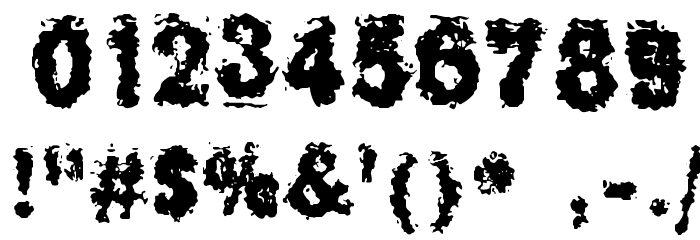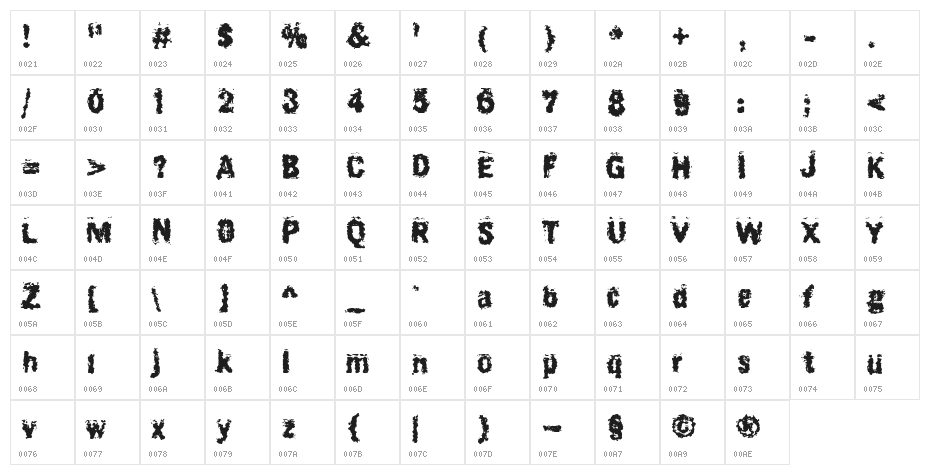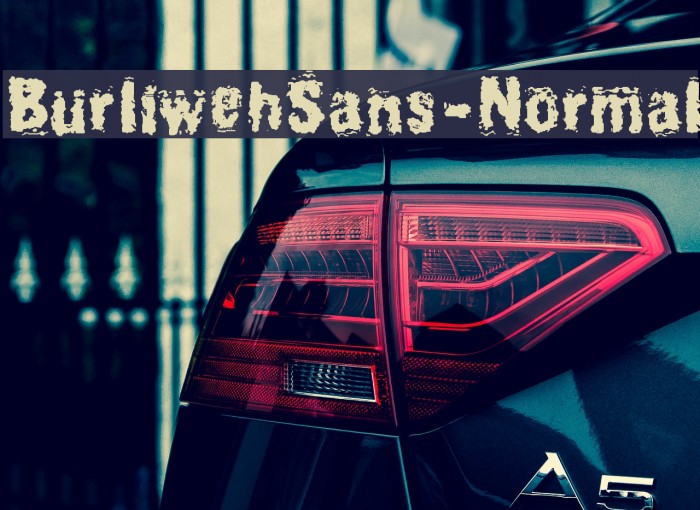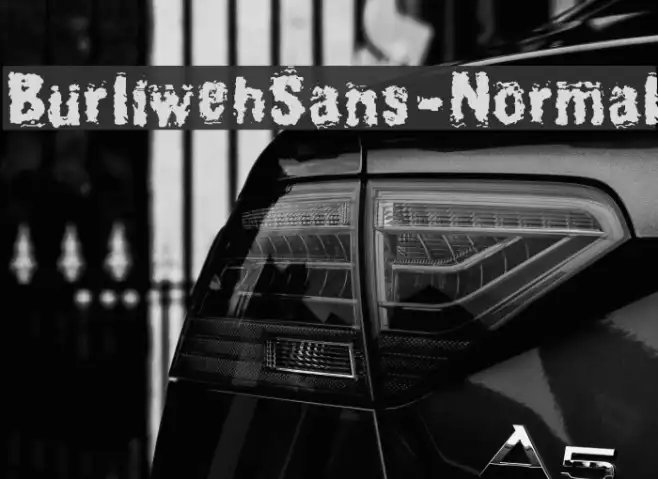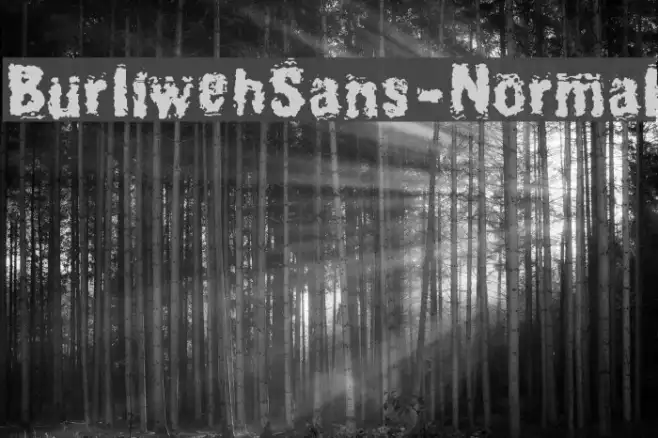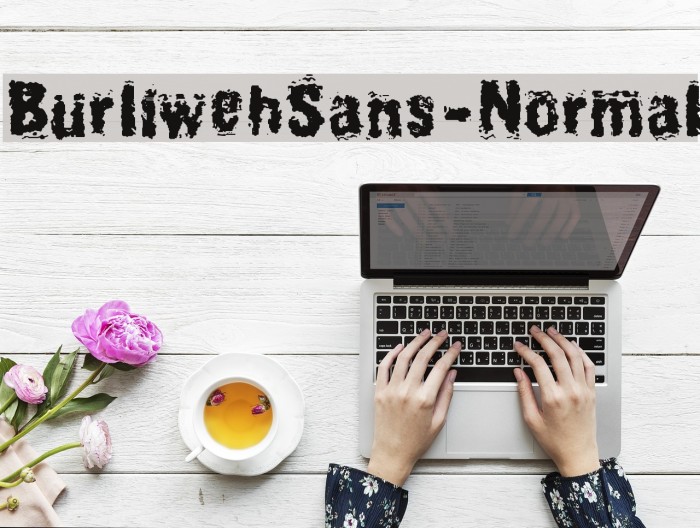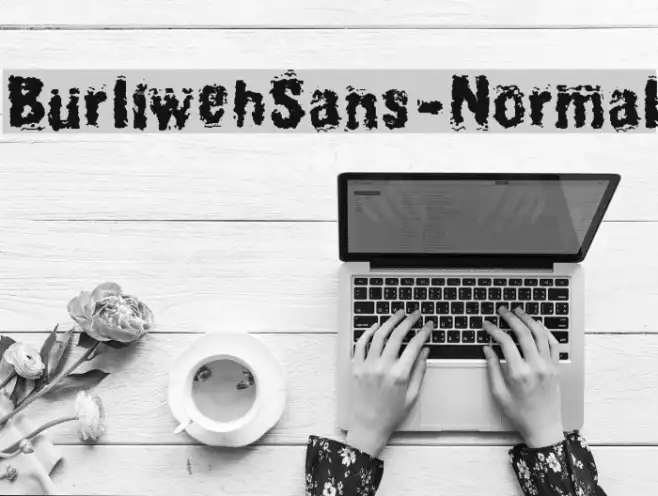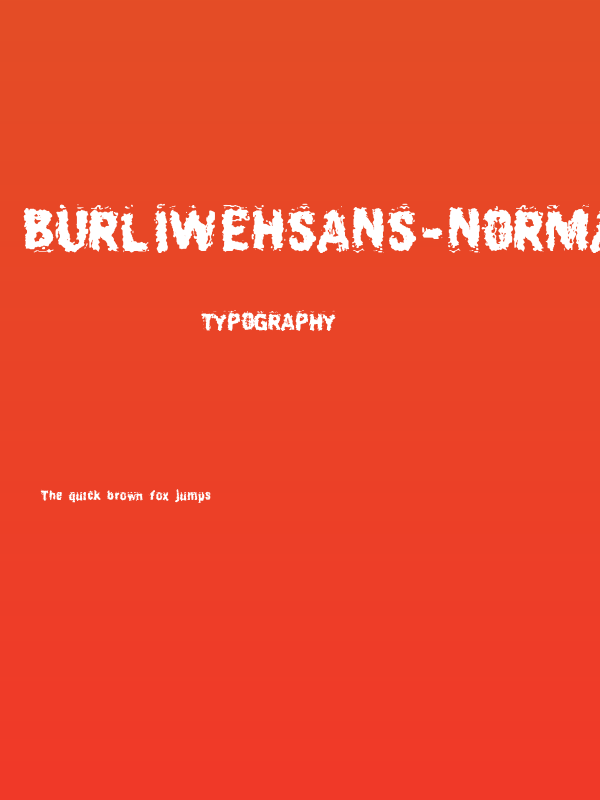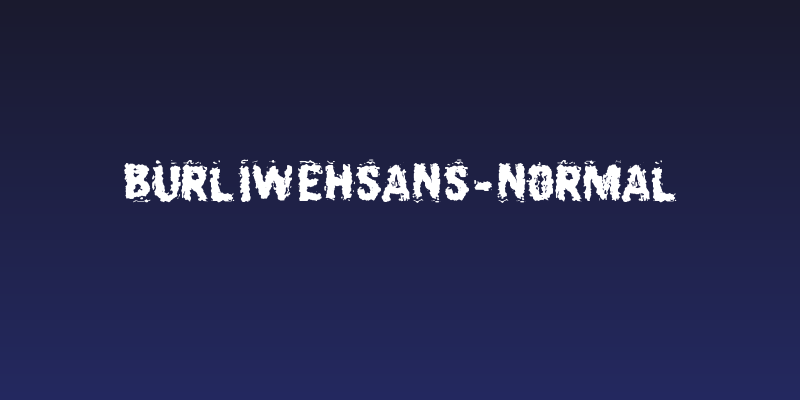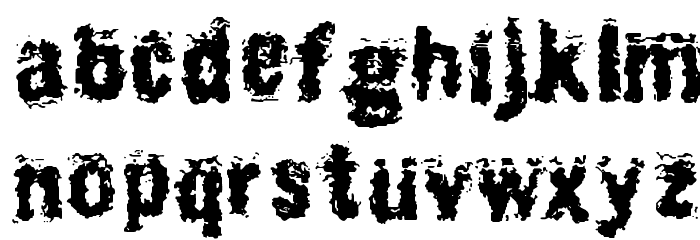
BurliwehSans-Normal Font
BurliwehSans-Normal Description
This font exhibits a bold and distressed appearance, characterized by rough, irregular edges that give it a grunge or worn-out look. The uppercase and lowercase letters maintain a consistent style, with each character appearing as if it has been weathered or eroded over time. The numbers and special characters follow the same design, ensuring uniformity across all elements. This font's unique texture and bold presence make it stand out, offering a distinctive aesthetic that is both eye-catching and unconventional.
| Overall Style | Grunge, Vintage |
| Proposed Projects | Ideal for projects requiring a rugged or vintage feel, such as album covers, posters, or branding for alternative or edgy products. |